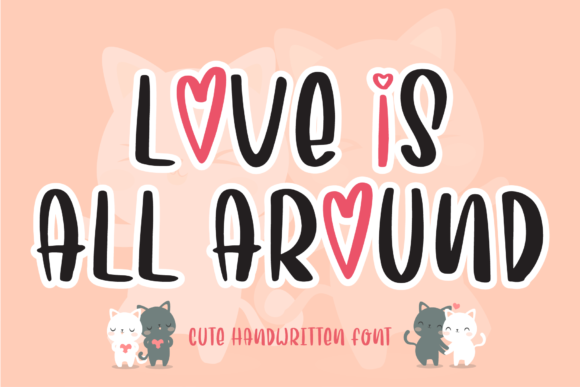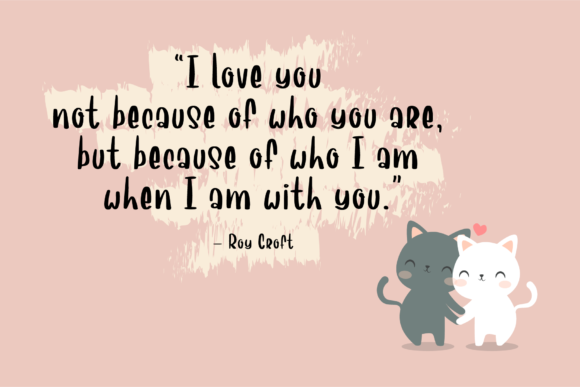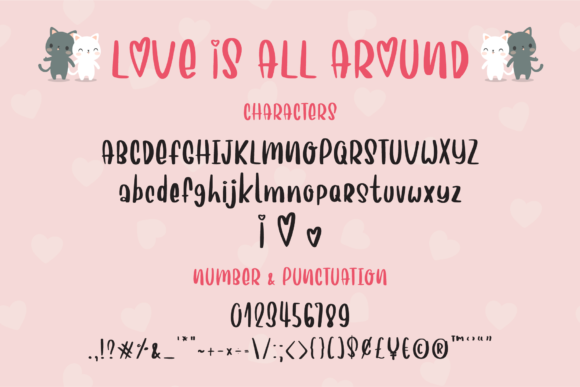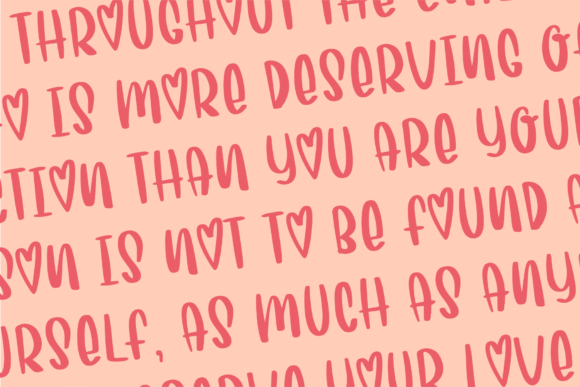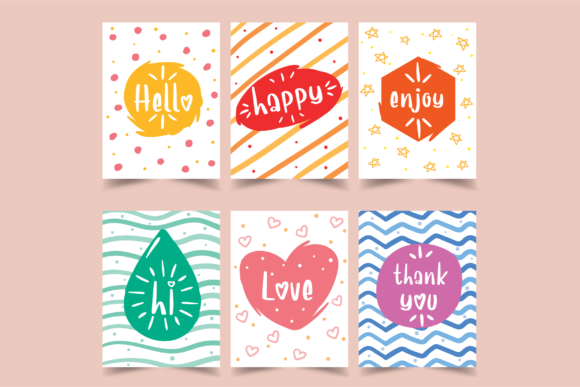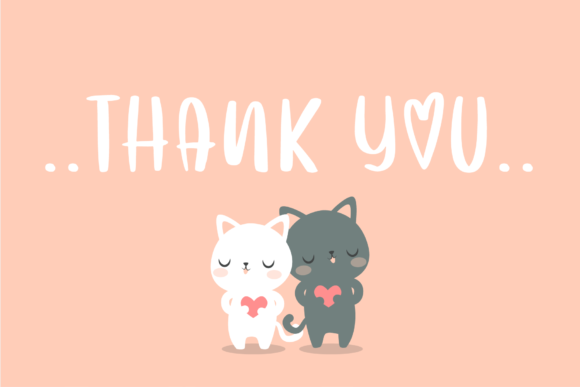
Love is All Around Font
About Love is All Around Font
Love is All Around is a sweet and friendly handwritten font. Its playful and a little bit quirky style makes this font fit for a wide variety of ideas. Let your imagination be the limit!